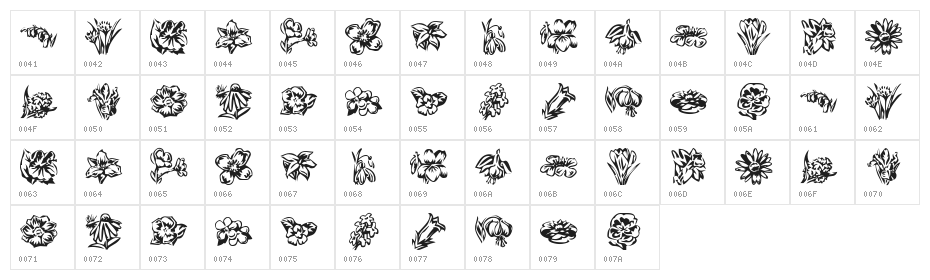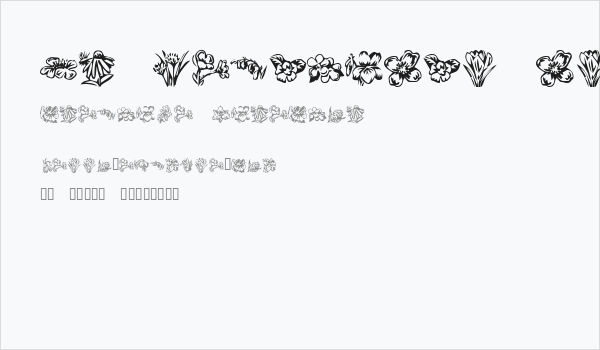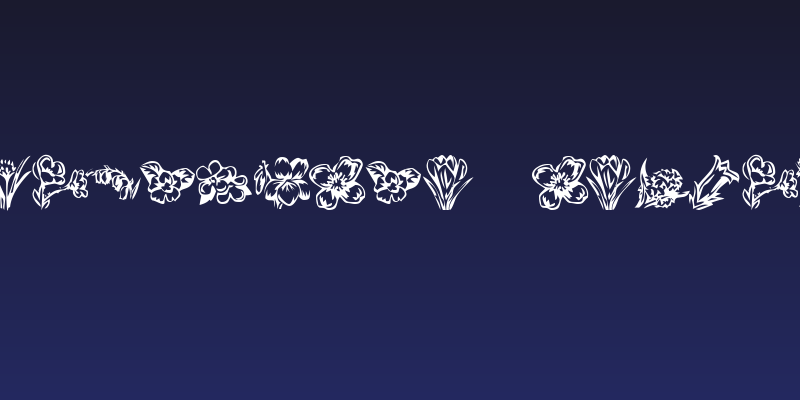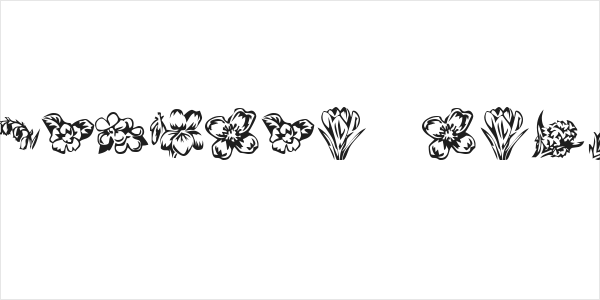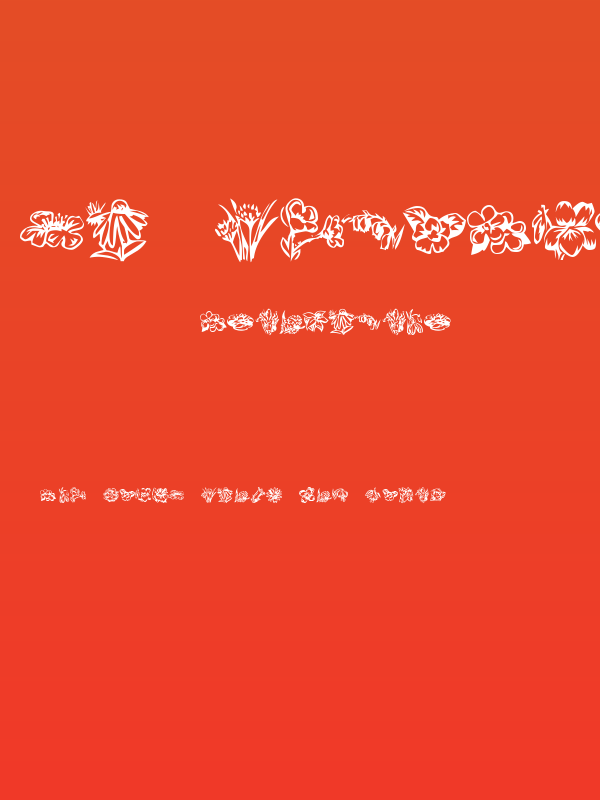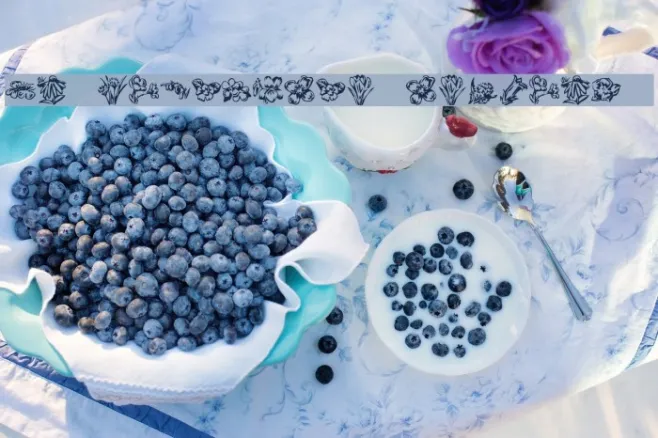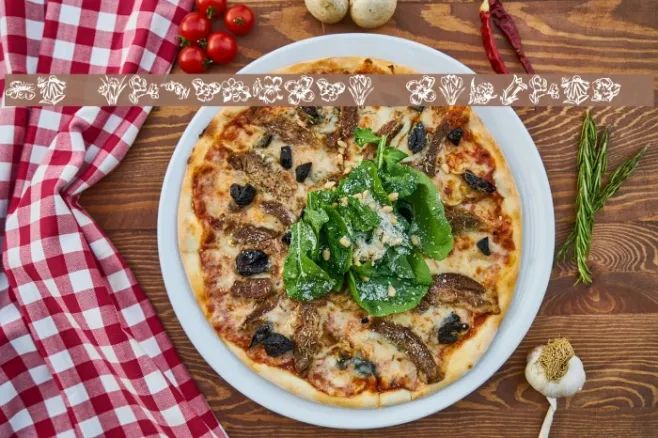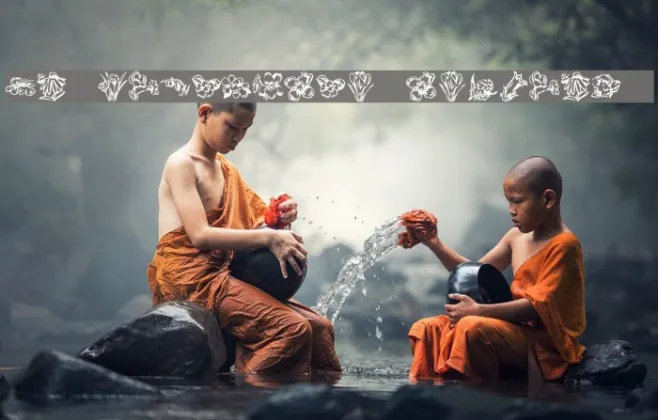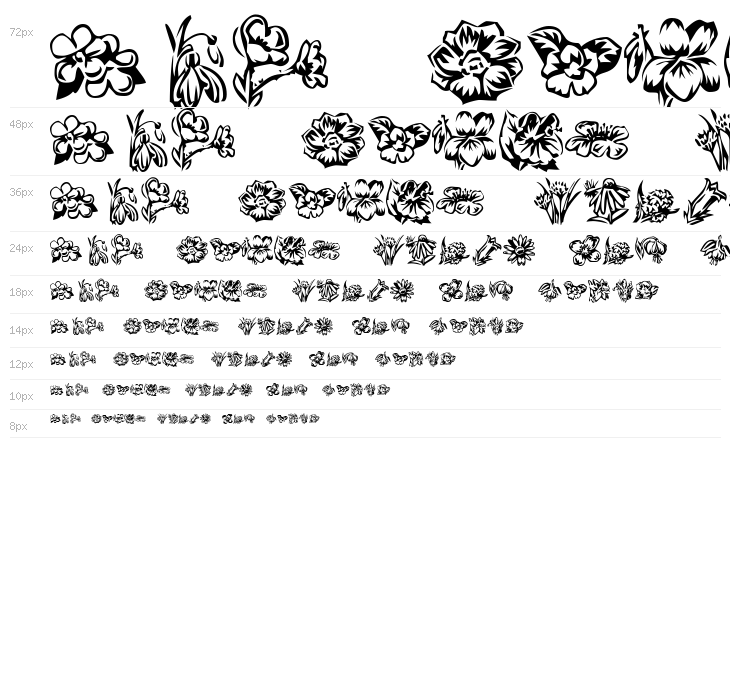
KR Beautiful Flowers 2 Font
KR Beautiful Flowers 2 Description
A decorative dingbat font featuring a variety of hand-drawn floral illustrations, each character represented by a unique flower or plant motif with bold, sketch-like outlines and organic shapes.
| Overall Style | Decorative, Hand-drawn, Organic |
| Use Case | Decorative elements, Borders, Icons, Embellishments |
| Proposed Projects | Greeting cards, invitations, scrapbooking, decorative borders, nature-themed designs, digital stickers. |